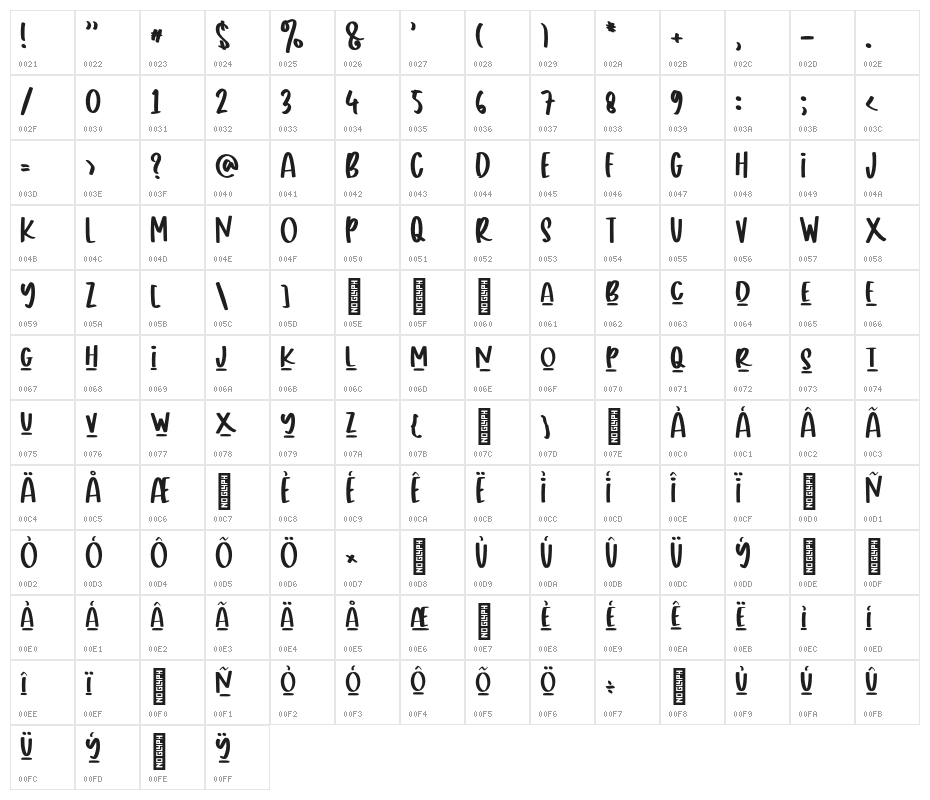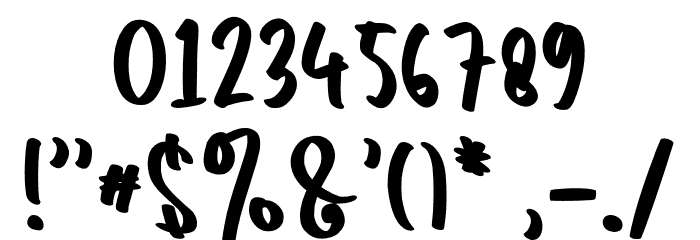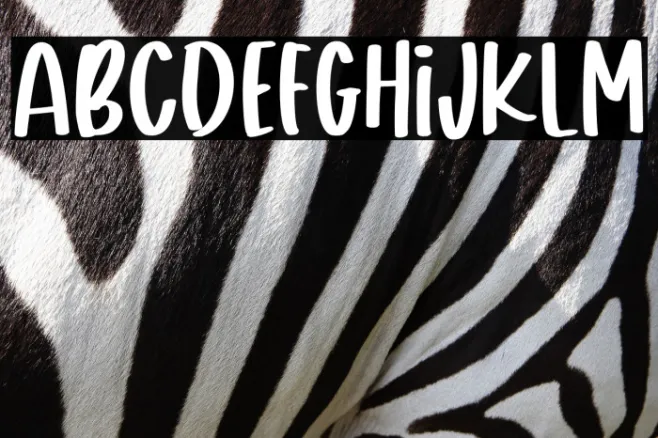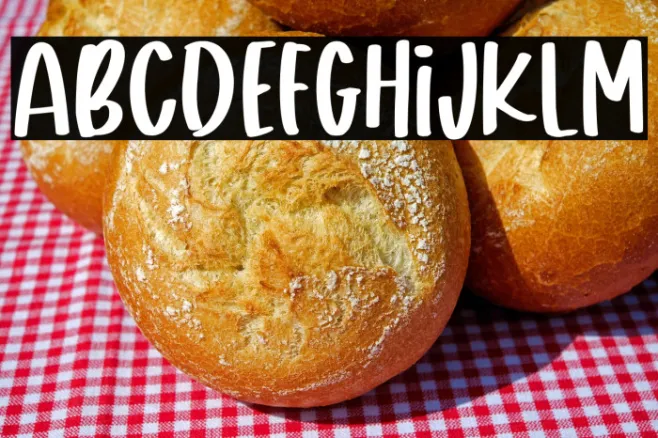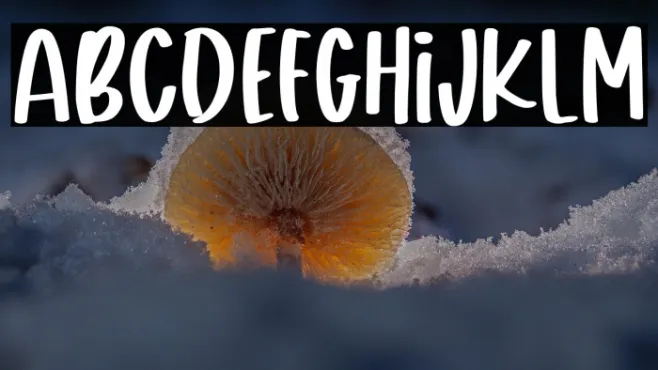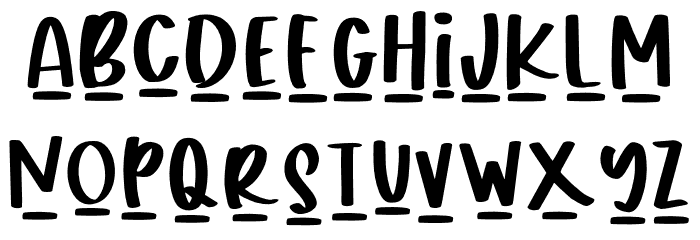
Oredo Regular Font
Oredo Regular Description
This font features a bold and playful handwritten style with rounded edges and a casual, friendly appearance. The letters are slightly slanted, giving a dynamic and energetic feel. The uppercase and lowercase characters maintain a consistent weight, providing a harmonious look. The numerals and special characters are designed to match the overall style, ensuring a cohesive appearance across all text elements. This font's unique personality makes it stand out, while still being legible and versatile for various design needs.
| Use Case | Headlines, Logos, Social Media |
| Proposed Projects | Ideal for children's books, greeting cards, playful branding, and social media graphics. |